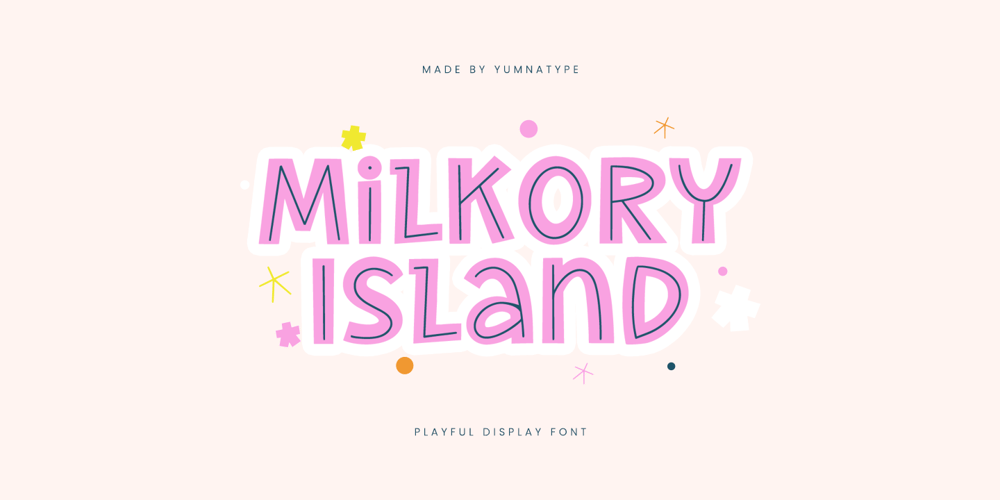
Milkory Island Font Family was designed by Donis Miftahudin and published by Yumna Type. Milkory Island contains 2 styles and family package options. Milkory Island is a whimsical display font that transports you to a world of playful imagination and charm. This font exudes a sense of joy and adventure. With its playful style and thick weight, Milkory Island captures the essence of childhood wonder and innocence. Each letter is meticulously designed with rounded shapes and charming inlines, creating a delightful texture that is both playful and captivating. The thick weight of Milkory Island adds to its bold presence and ensures that your message is conveyed with clarity and impact. In addition, enjoy the features here.Features: Ligatures Multilingual Supports PUA Encoded Numerals and Punctuations Milkory Island fits in headlines, logos, posters, flyers, branding materials, greeting cards, print media, editorial layouts, and many more designs. Find out more ways to use this font by taking a look at the font preview.Thanks for purchasing our fonts. Hopefully, you have a great time using our font. Feel free to contact us anytime for further information or when you have trouble with the font. Thanks a lot and happy designing.